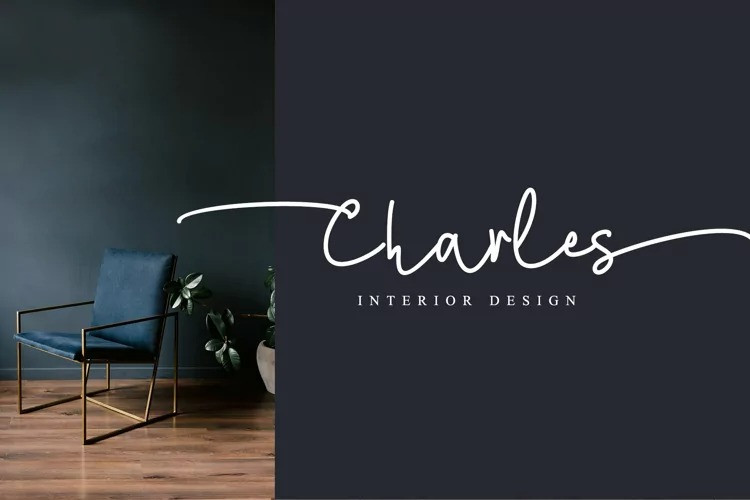
Emely Handwritten Font
This is a romantic and delicate monoline script typeface manufactured by Thomas Aradea. Clean and elegant, cursive, legible script font which can be used on a wide variety of designs such as headlines, titles, headings, logos, branding, posters, invitations, books, and any other creative design. This font is PUA encoded which means you can access all of the cute glyphs and swashes with ease! It also features a wealth of special features including alternate glyphs and ligatures.